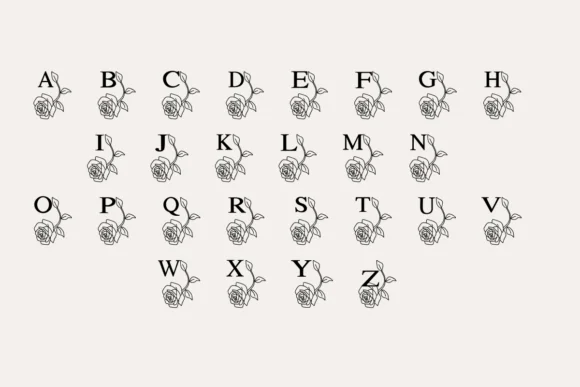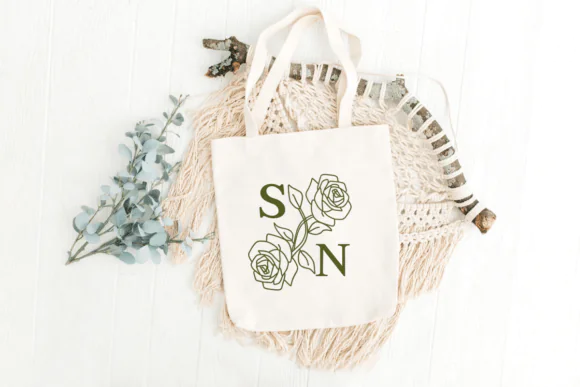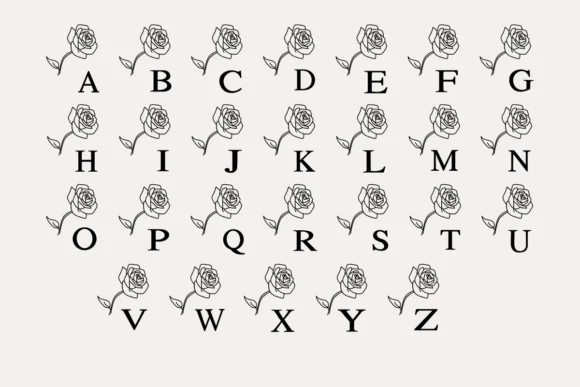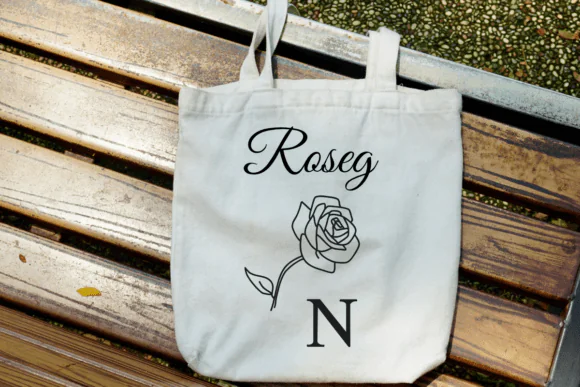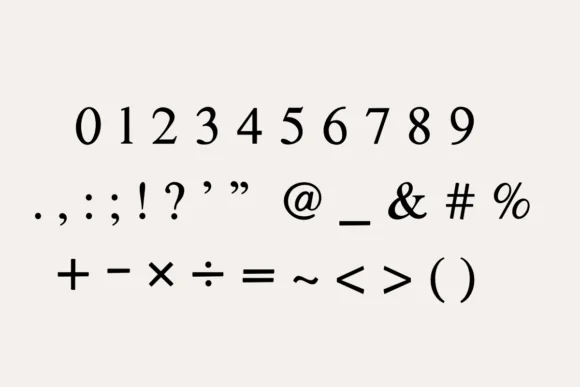
Wedding Rose Font | Decorative Romantic Font for Wedding Invitations, Greeting Cards, Diaries, Notes, Mugs, Shirts & Elegant Designs
Create beautiful romantic designs with Wedding Rose Font, a decorative font made for elegant, charming, and creative projects. This font is perfect for wedding-themed designs, greeting cards, personal notes, diary writing, stationery, social media posts, banners, mugs, shirts, and many other creative uses.
Wedding Rose Font brings a soft decorative feel that works beautifully for love-inspired designs, feminine branding, printable cards, invitations, handmade crafts, and stylish digital artwork. Whether you are designing a wedding invitation, a romantic quote print, a personalized mug, a t-shirt design, or social media content, this font can help your project look graceful and eye-catching.
• Wedding invitations
• Greeting cards
• Diary writing and notes
• Romantic quote designs
• Mugs and shirts
• Stationery designs
• Social media posts
• Banners and posters
• Printable wall art
• Feminine branding
• Love-themed designs
• Craft projects
• Digital content designs
• Decorative and romantic style
• Great for wedding and love-themed projects
• Suitable for both print and digital designs
• Useful for cards, mugs, shirts, banners, and stationery
• Perfect for personal creative projects and business designs
Wedding Rose Font is a lovely choice for anyone who wants to create elegant, romantic, and decorative designs with a soft wedding-inspired feel.